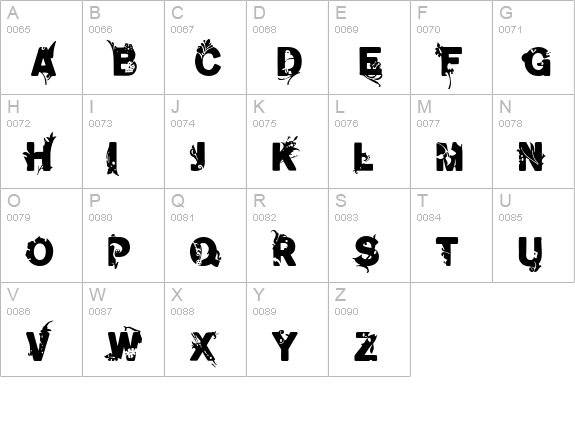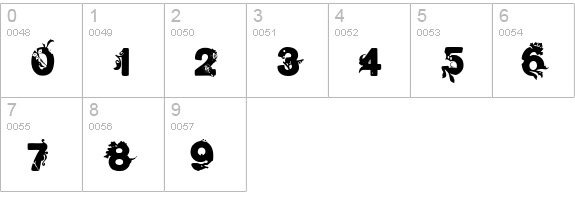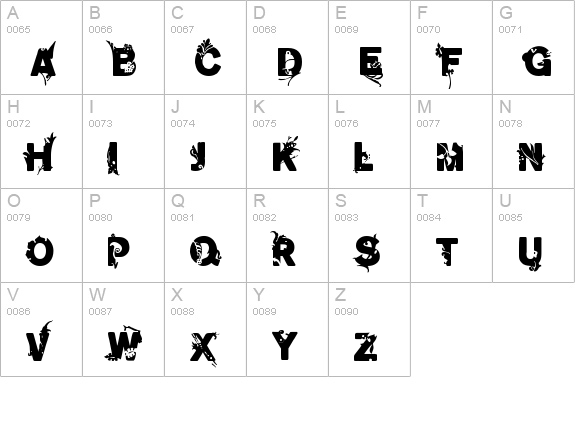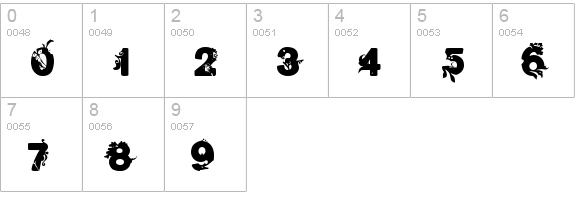
GardenTwoThirds Font Details
GardenTwoThirds font is a charming and elegant typeface that exudes a whimsical and artistic vibe. This font features delicate curves and intricate details, making it perfect for adding a touch of sophistication to any design project. With its unique and distinctive style, GardenTwoThirds font is sure to captivate and enchant your audience. The best part? GardenTwoThirds font is available for free download at FontsMarket.com. This means you can easily access this beautiful font and use it in your personal or commercial projects without any restrictions. Don't miss out on the opportunity to enhance your designs with the beauty and grace of GardenTwoThirds font. Download it today and let your creativity bloom!